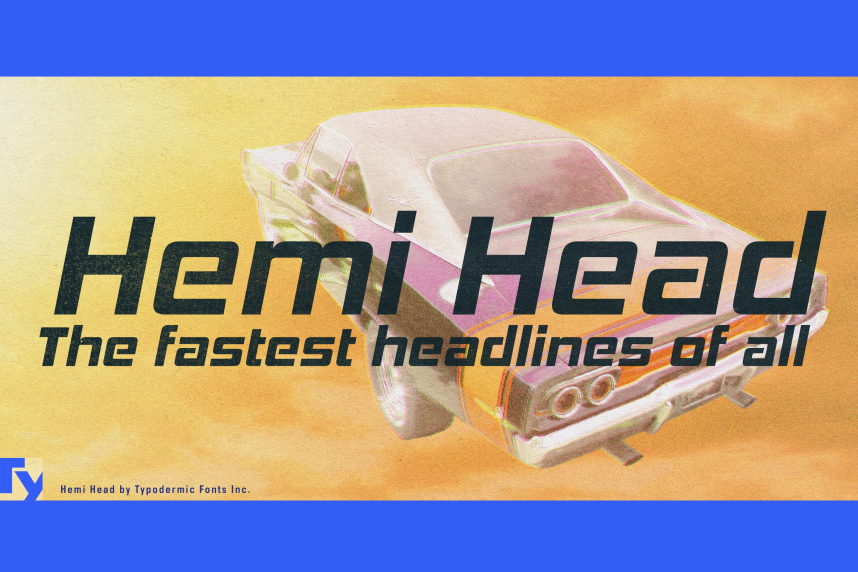
Hemi Head Font, which was designed by Ray Larabie and published by Typodermic Fonts Inc., belongs to the display sans serif typeface family.
The original Hemi Head 426 was first created in 1997 as a bold italic display typeface. The family was later rebuilt and expanded into a comprehensive typeface with eighteen styles, including nine weights with matching italics, ranging from hairline to heavy.
Hemi Head Font
NameHemi Head Font
DesignerRay Larabie
FoundryTypodermic Fonts Inc.
TypeDisplay Sans Serif